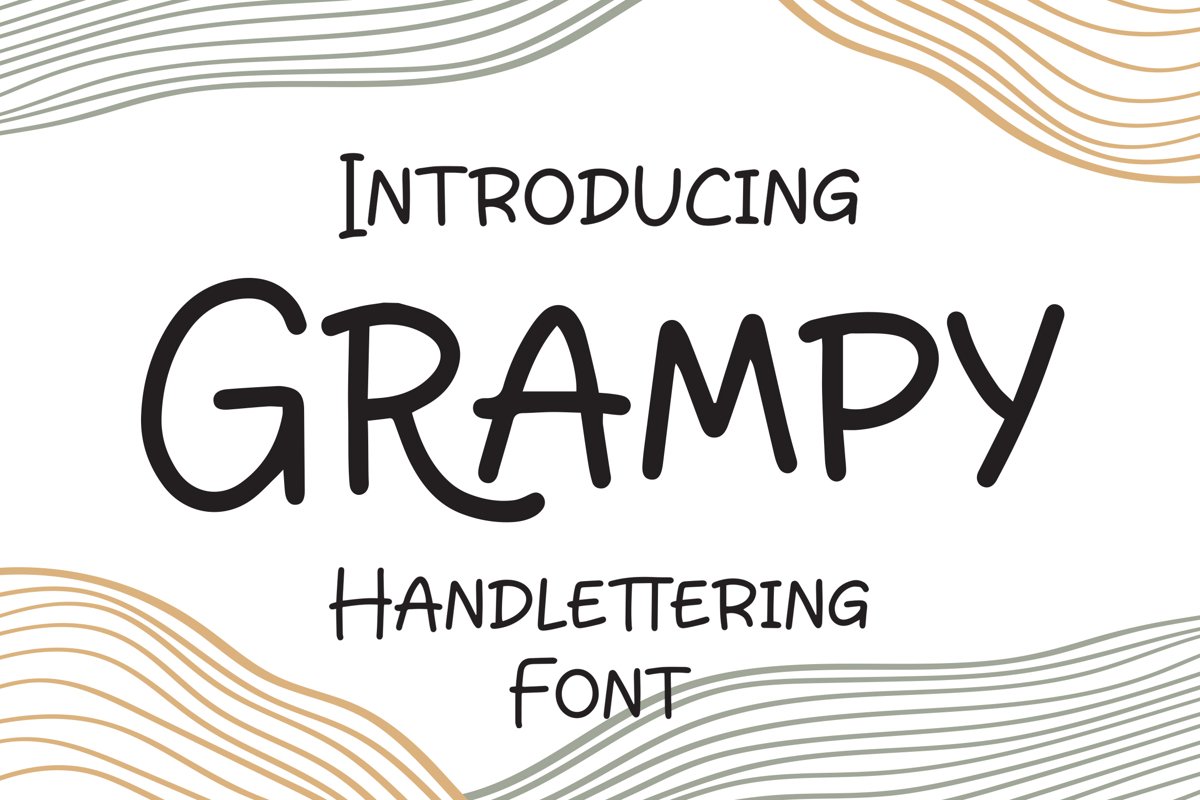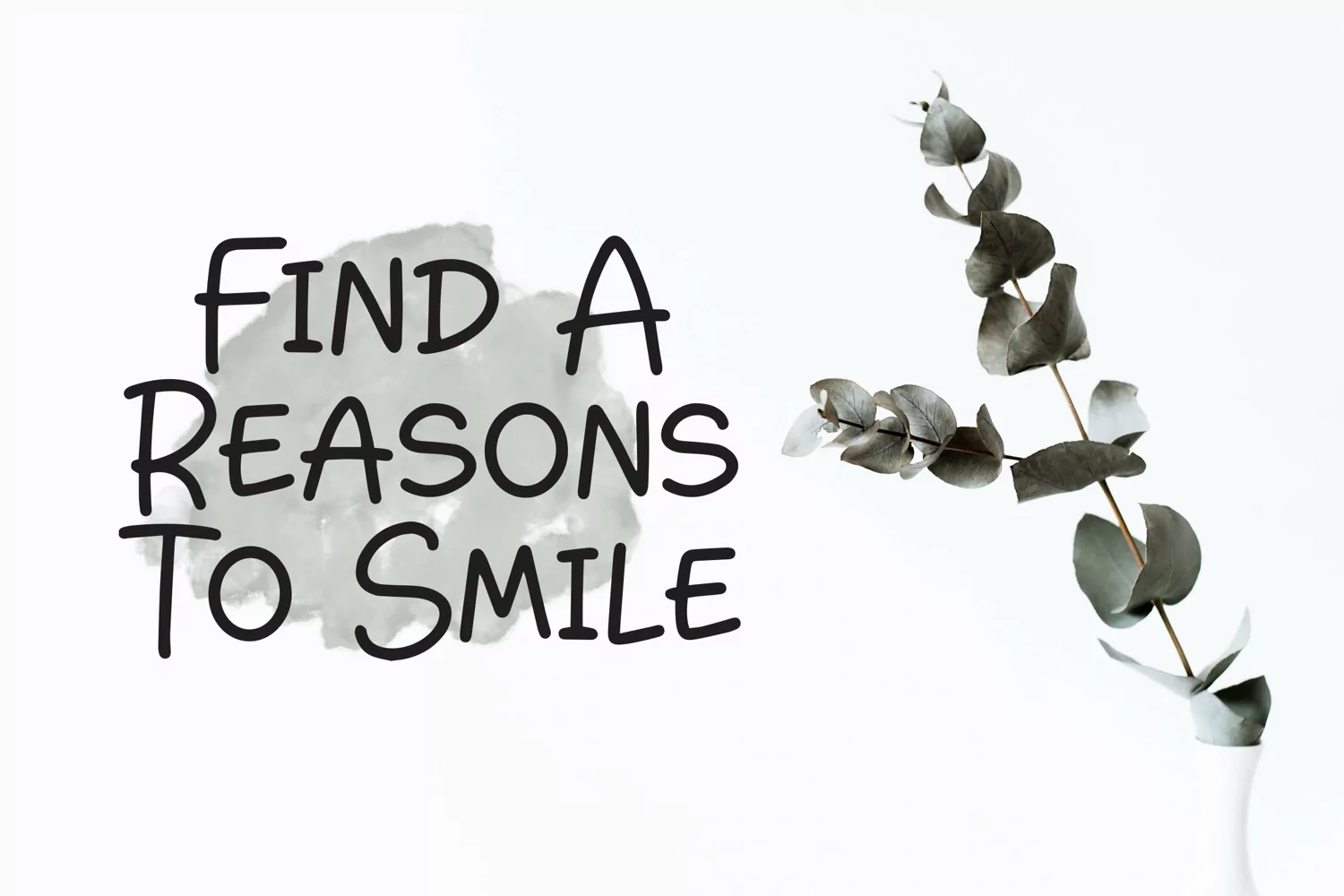
Grampy - Handlettering Font that contain lowercase, uppercase, symbol, and also support multi language. There’s a lot ligatures in this font. This Font also comes with ligatures, alternates and many more. this font suitable for fashion, branding, catalog and other design what you want.